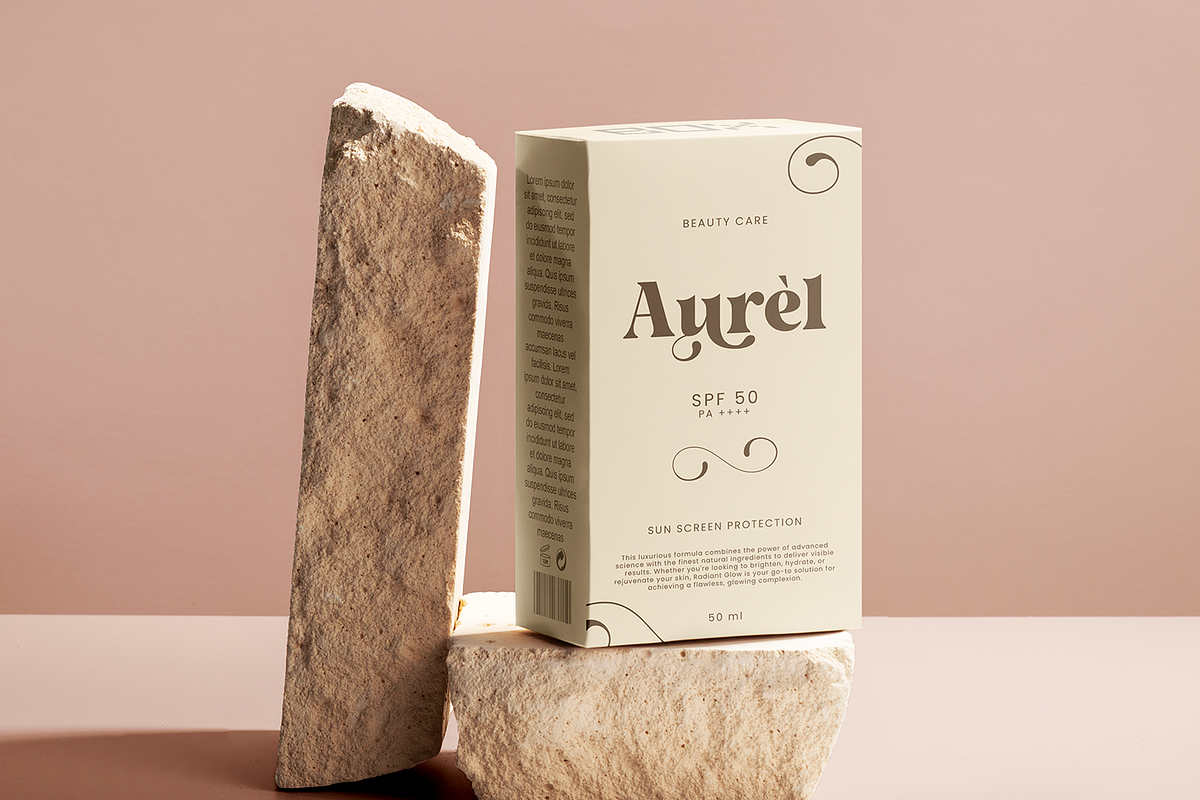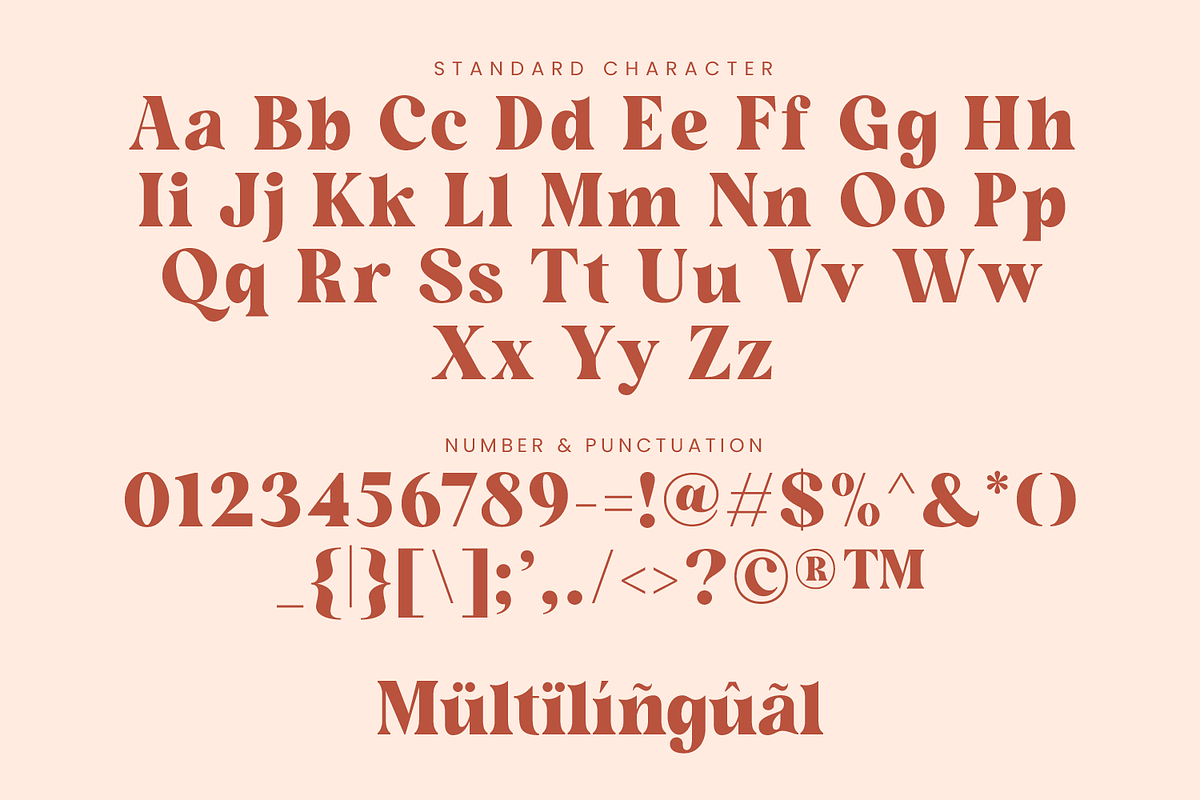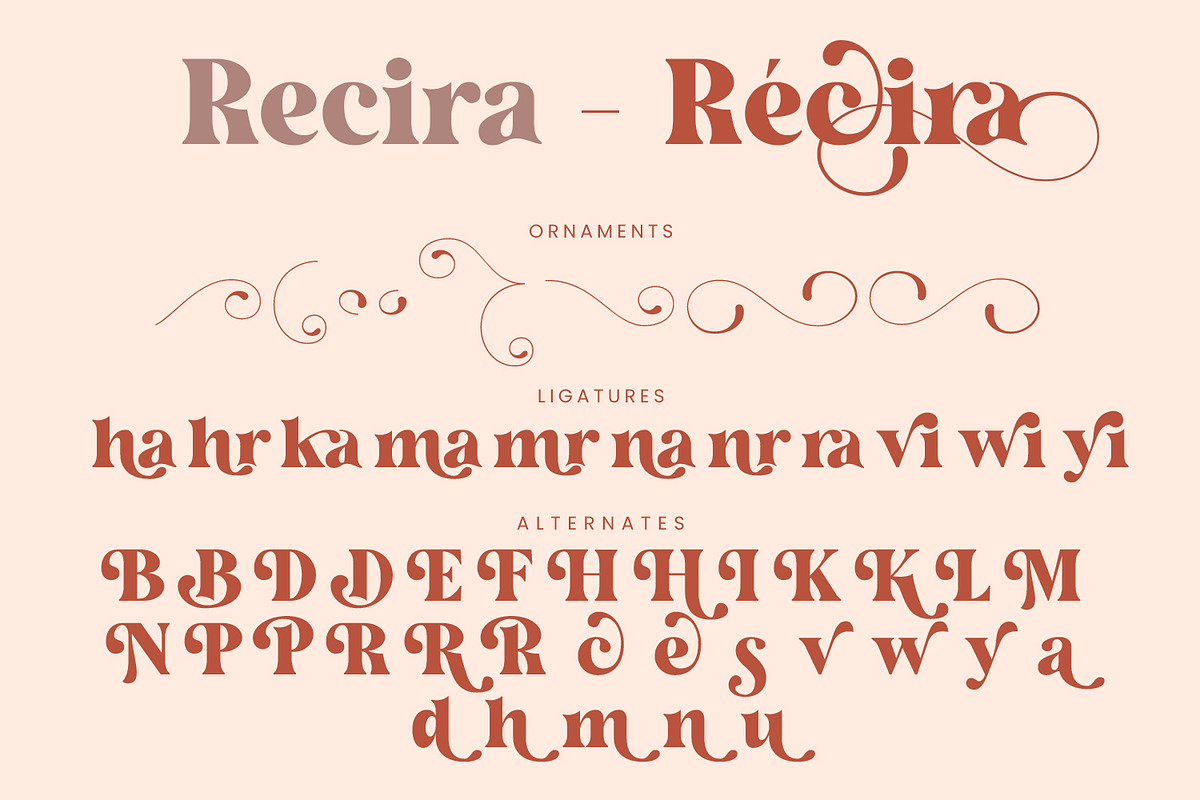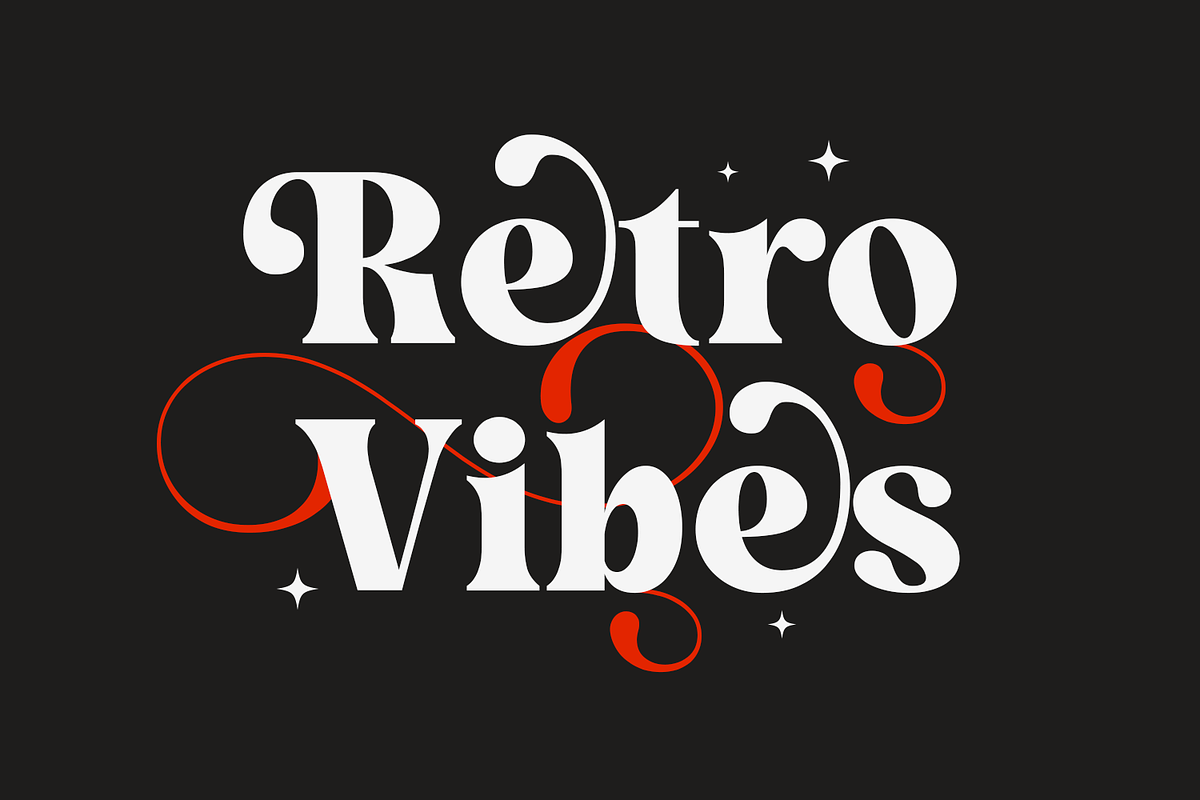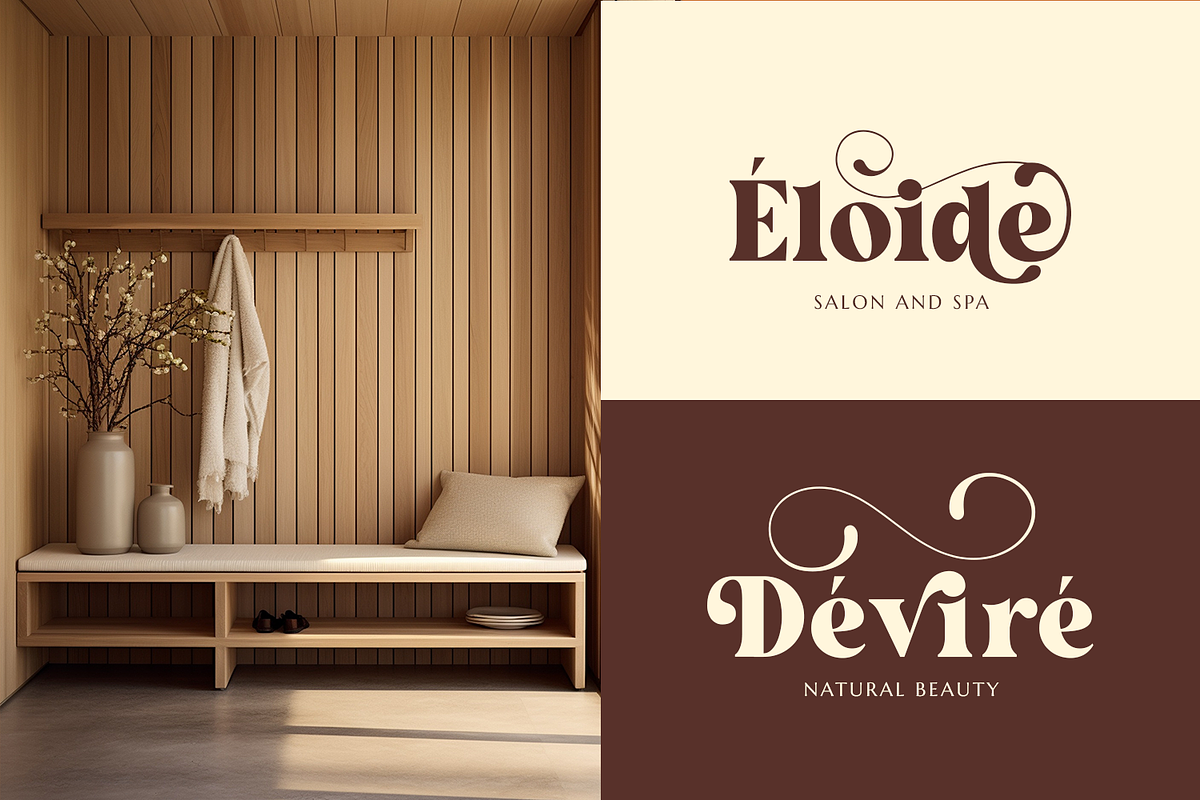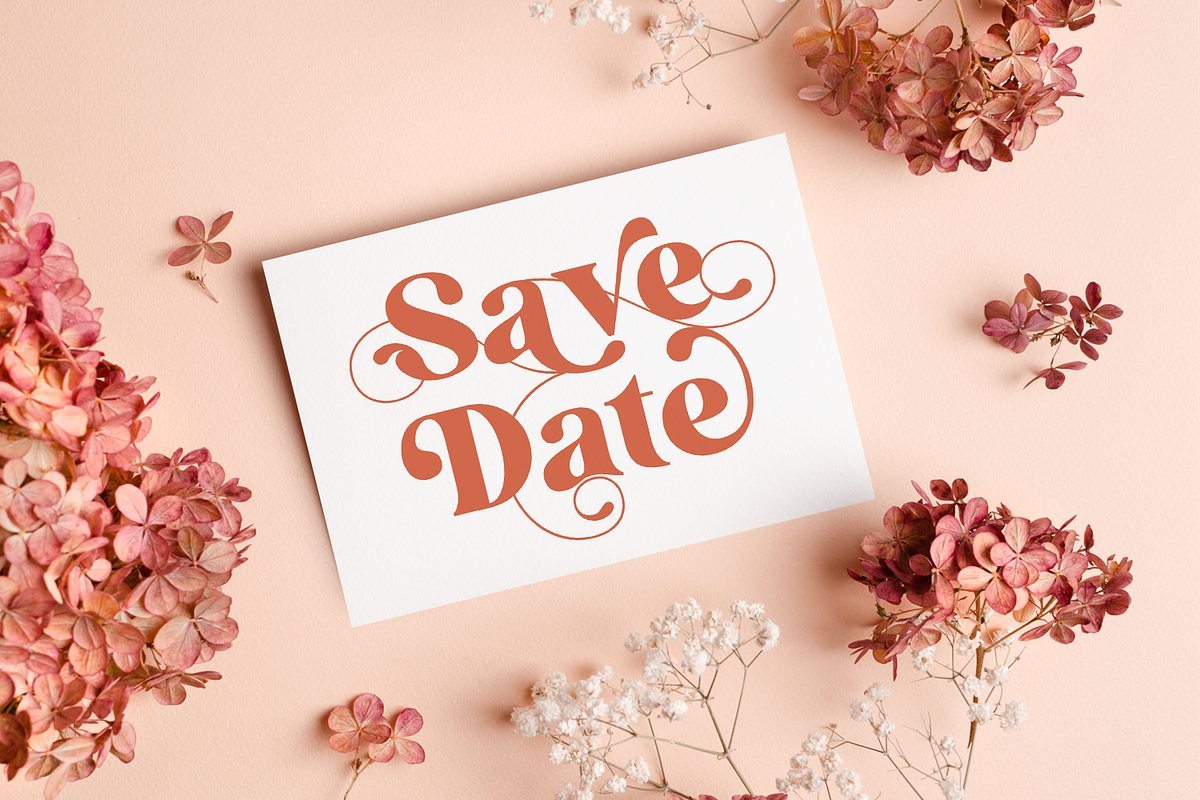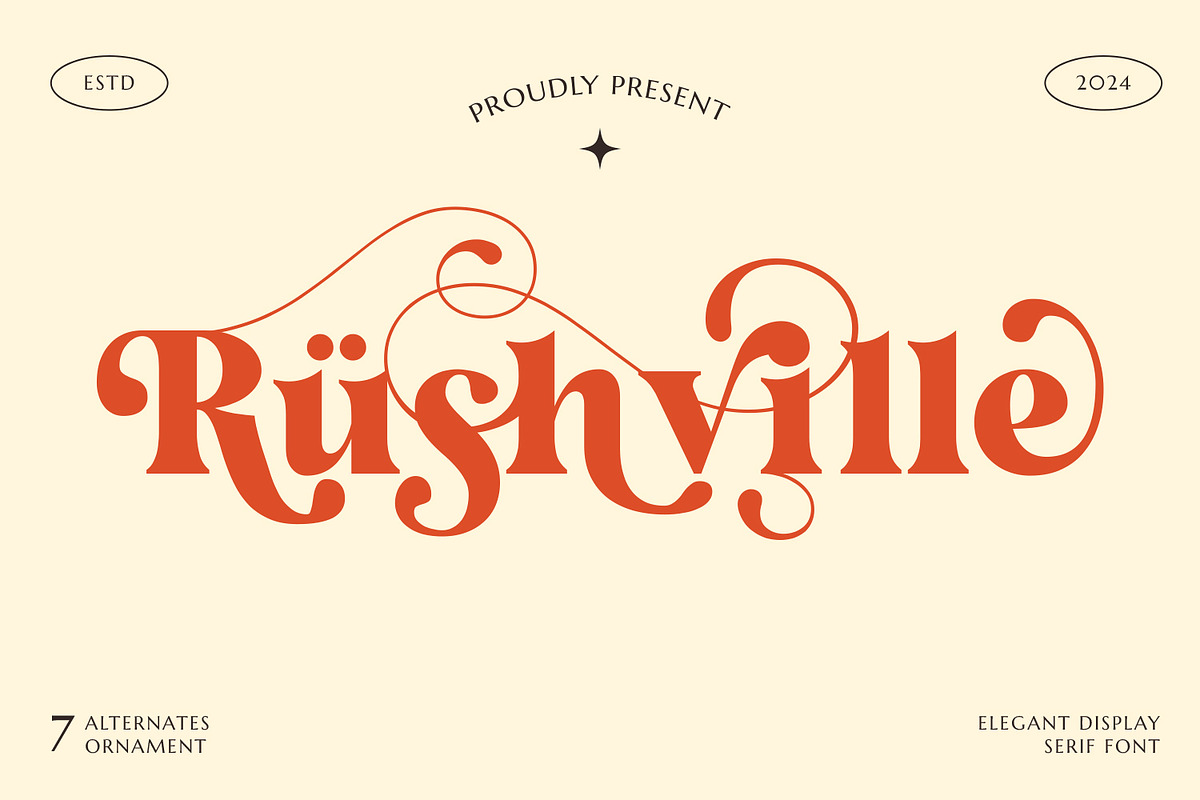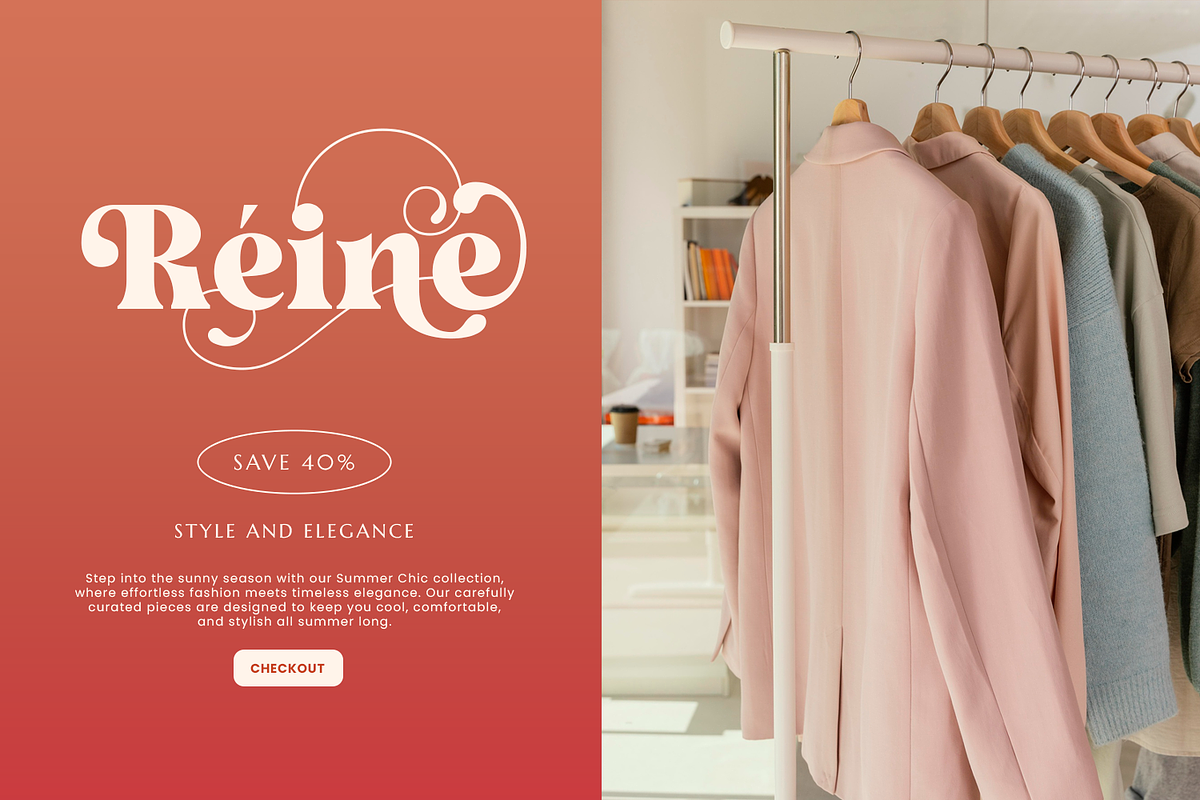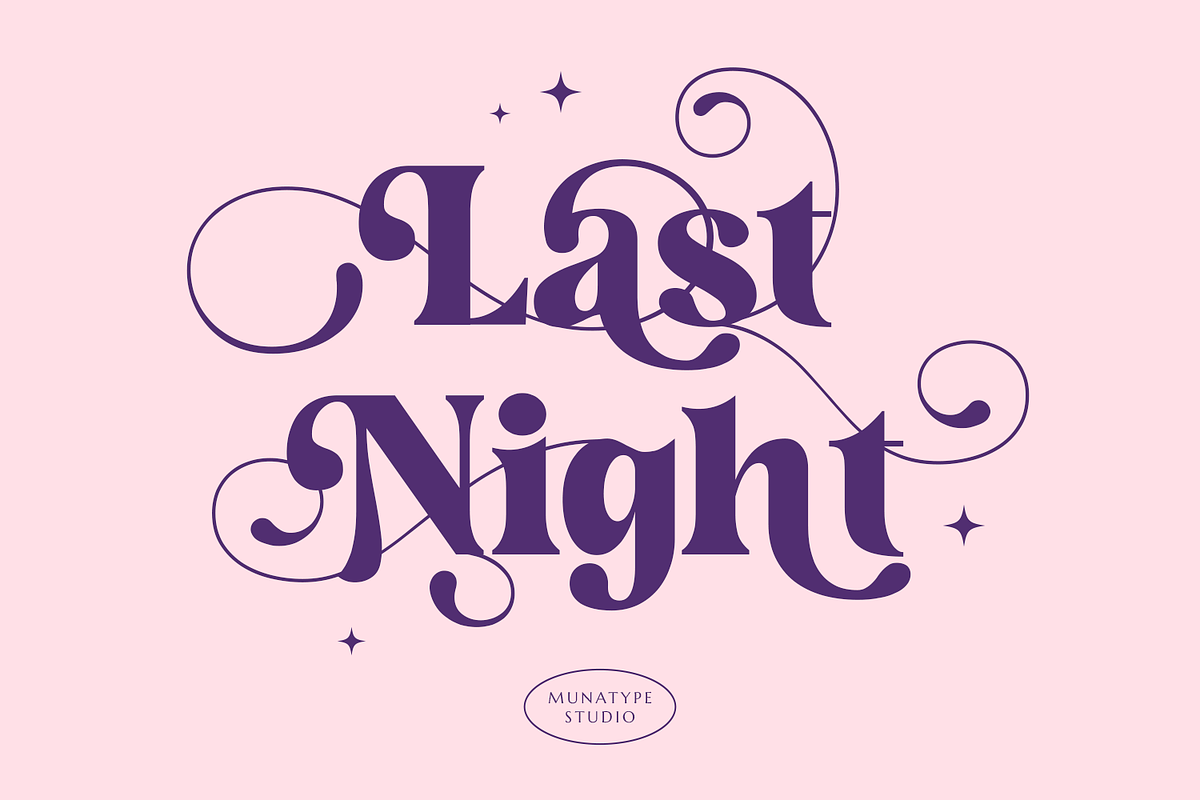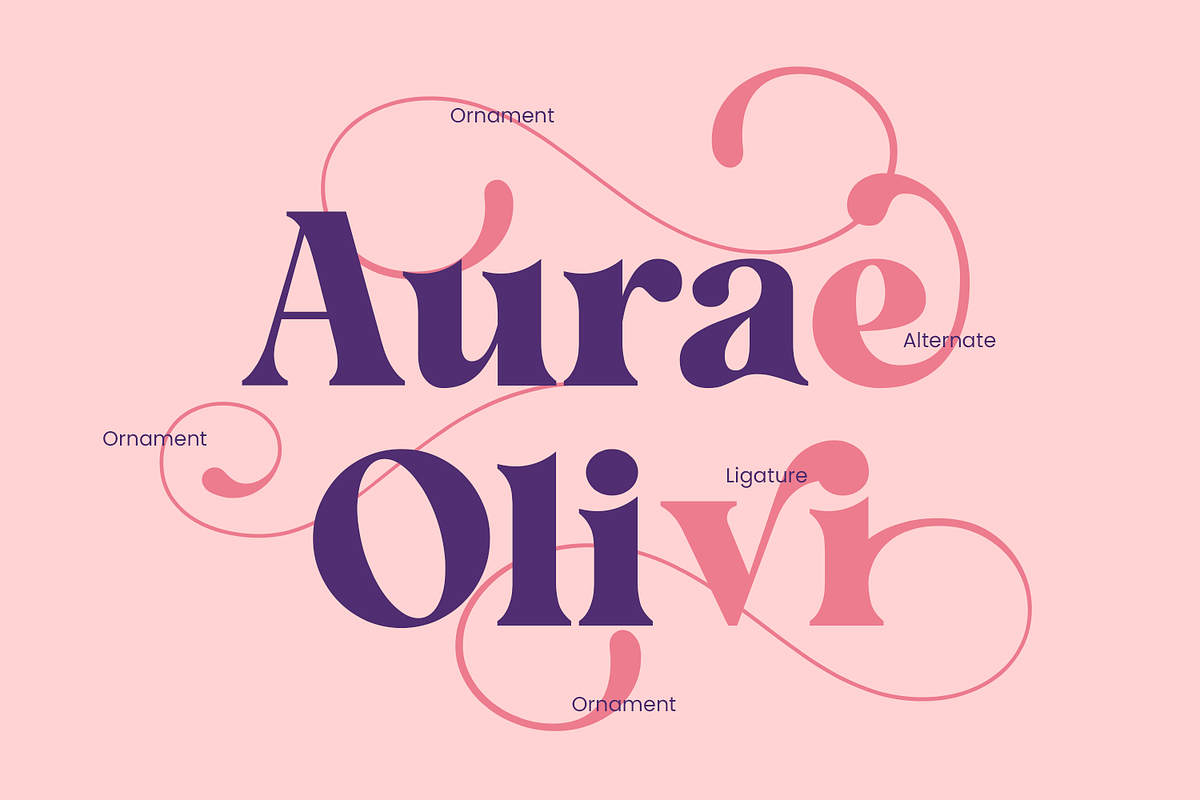
Rushville
Introducing Rushville, a fun and playful serif font that brings a touch of nostalgia and creativity to your projects. Perfect for a wide range of applications, from magazines and postcards to logos and DIY projects, Rushville embodies a vintage charm that evokes the classic styles of the 60s, 70s, and 80s. Its unique character and whimsical design make it an ideal choice for invitation cards, quotes, and any project that requires a retro flair.
Whether you're working on wedding projects, branding initiatives, or logo designs, Rushville offers the versatility and appeal you need. Its delightful serifs and engaging shapes ensure your designs stand out, adding a timeless elegance to clothing branding, packaging, and magazine headings. With Rushville, your advertising materials, T-shirts, and postcards will capture attention and leave a lasting impression.
Add an extra touch of magic to your designs by incorporating the unique shapes from the Rushville ornament collection. These decorative elements complement the font perfectly, creating a stunning display that enhances the overall aesthetic. Don't miss the chance to elevate your creative projects with Rushville – the font that combines playful nostalgia with modern elegance. Try Rushville today and watch your designs come to life!